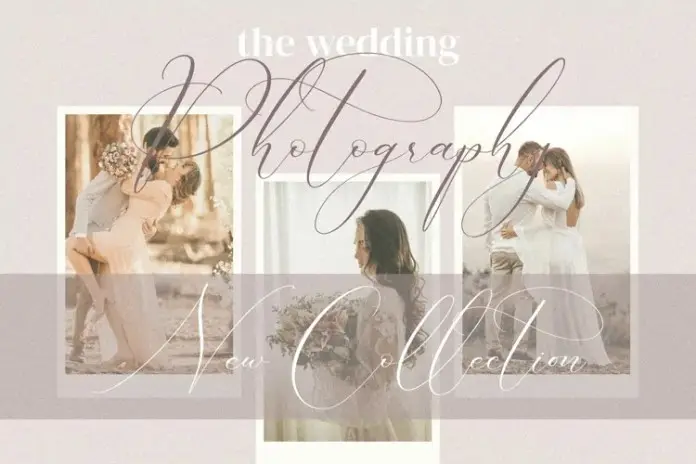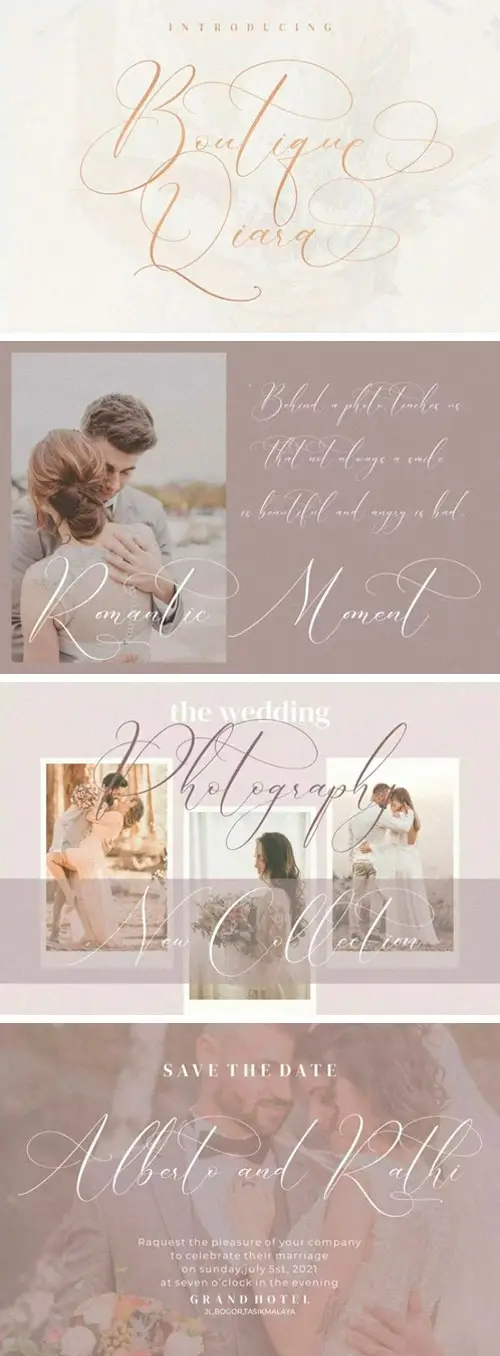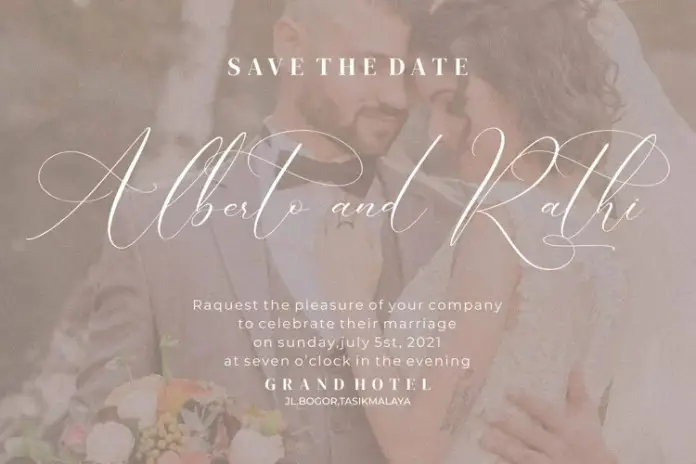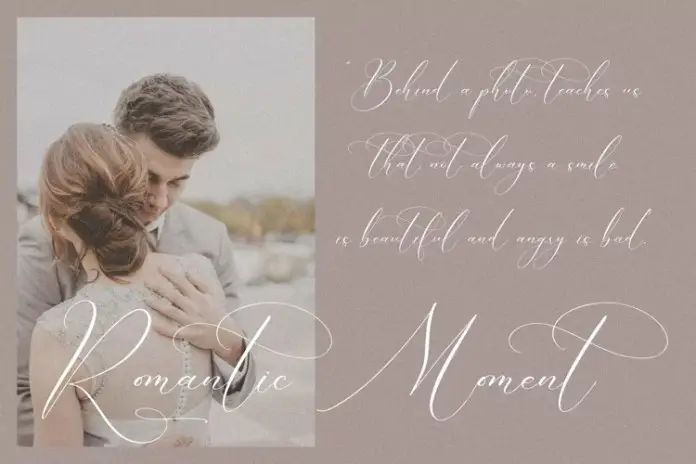
Boutique Qiara Calligraphy Font
The Boutique Qiara Calligraphy Font is a beautifully crafted typeface that brings elegance and sophistication to your designs. With its flowing lines and artistic curves, this font is perfect for creating stunning branding materials, invitations, and logos.
• Stylish calligraphy design
• Ideal for wedding invitations, greeting cards, and personal branding
• Use in digital and print projects for a touch of elegance
• Pair with sans-serif fonts for a modern contrast